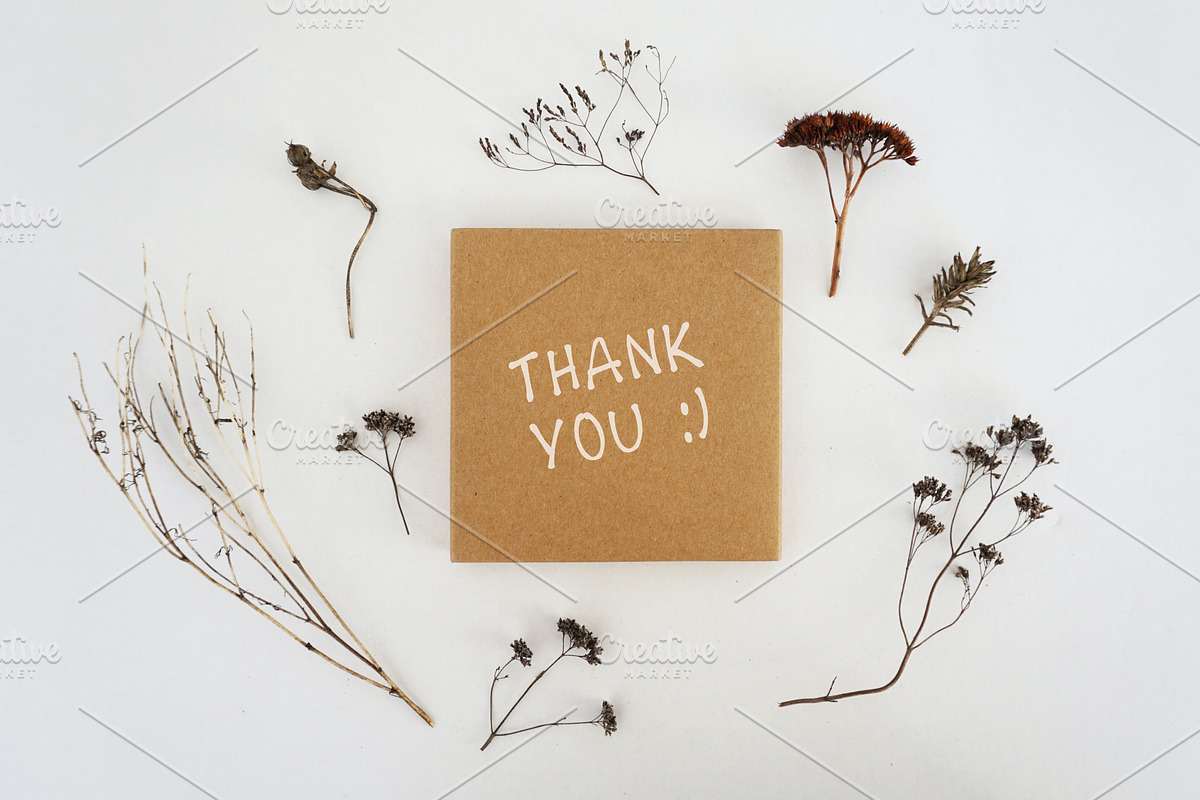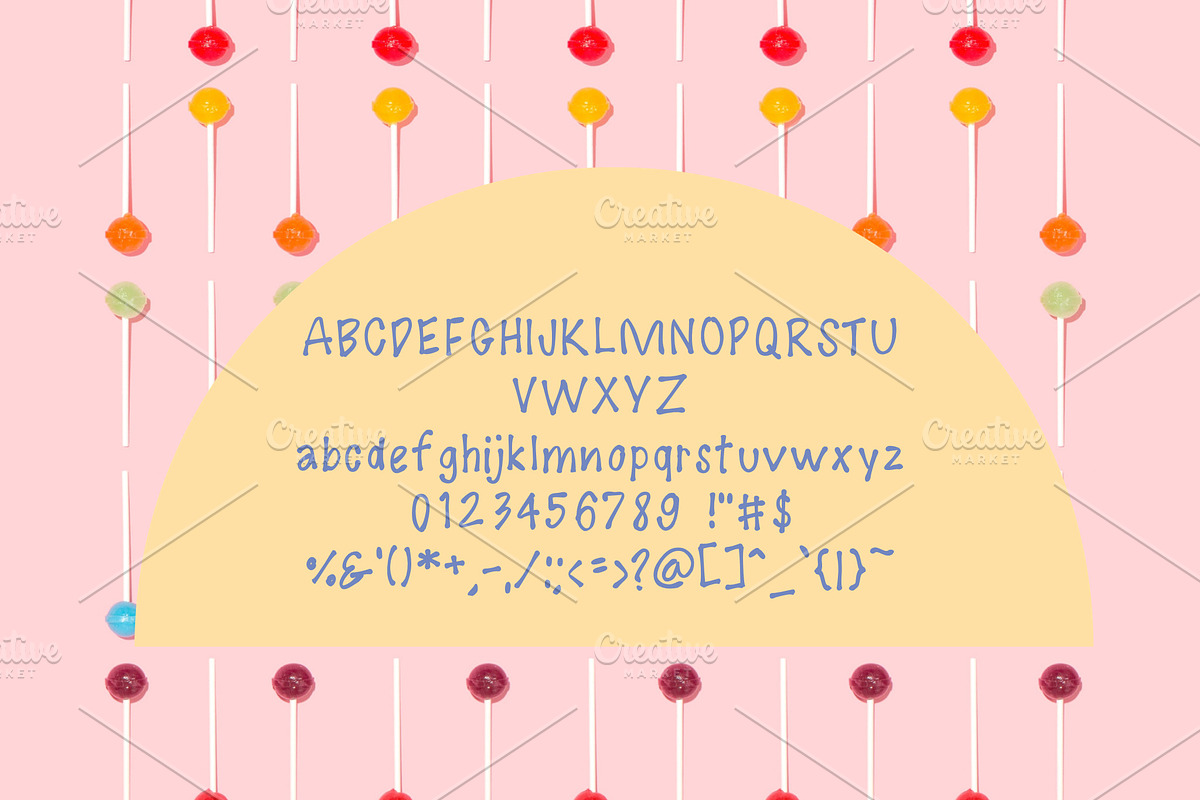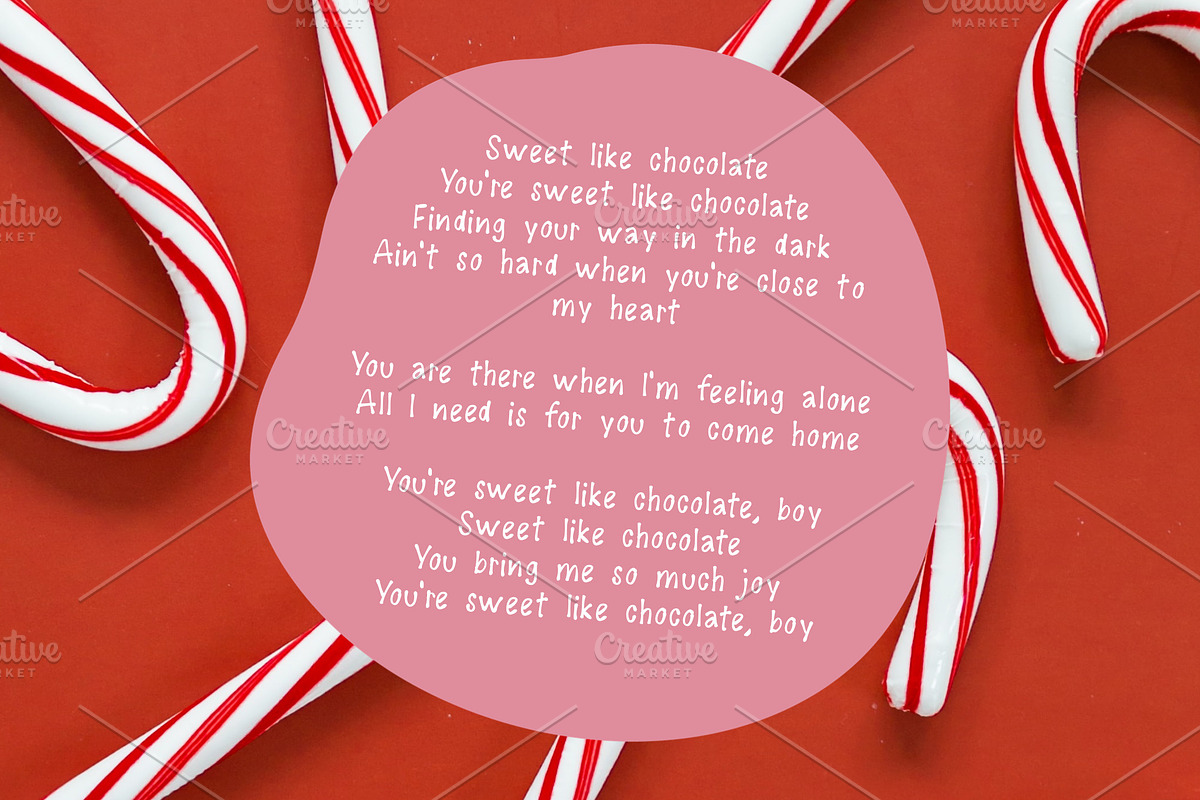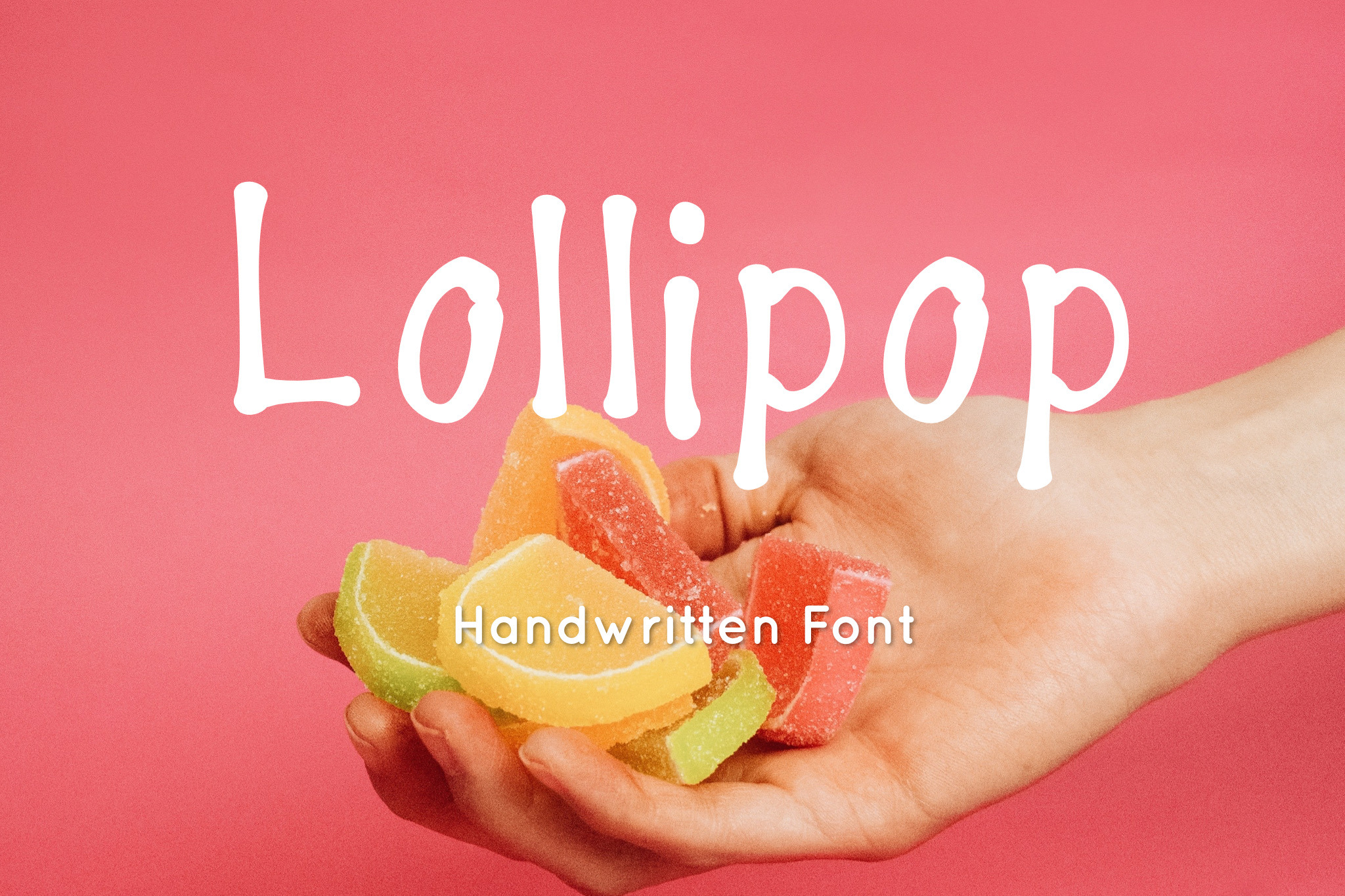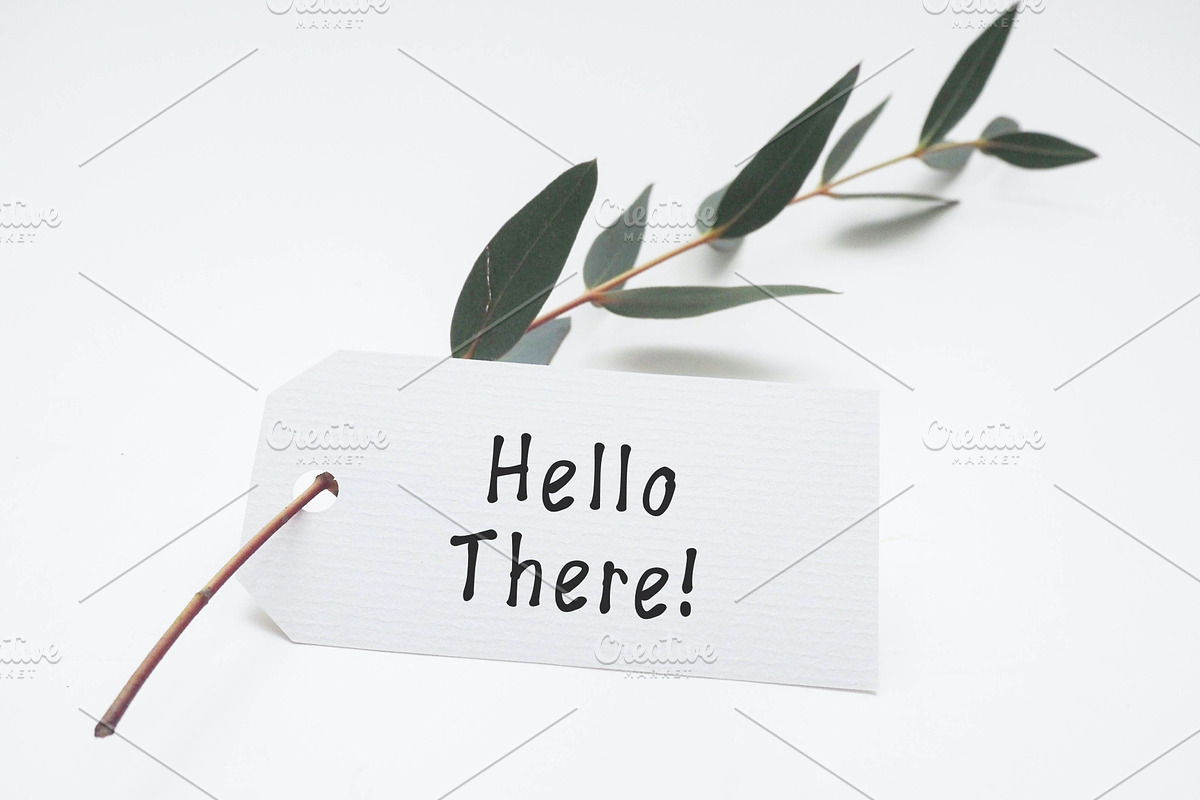
Lollipop cute handwritten font
Lollipop is a sweet, cute and friendly handwritten font. Its natural and unique style makes it incredibly fitting to a large pool of designs. The only limit is your imagination!